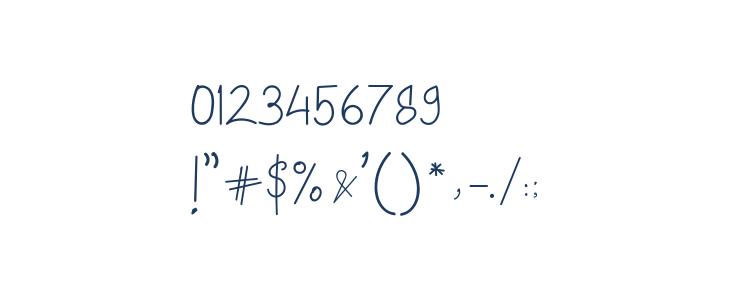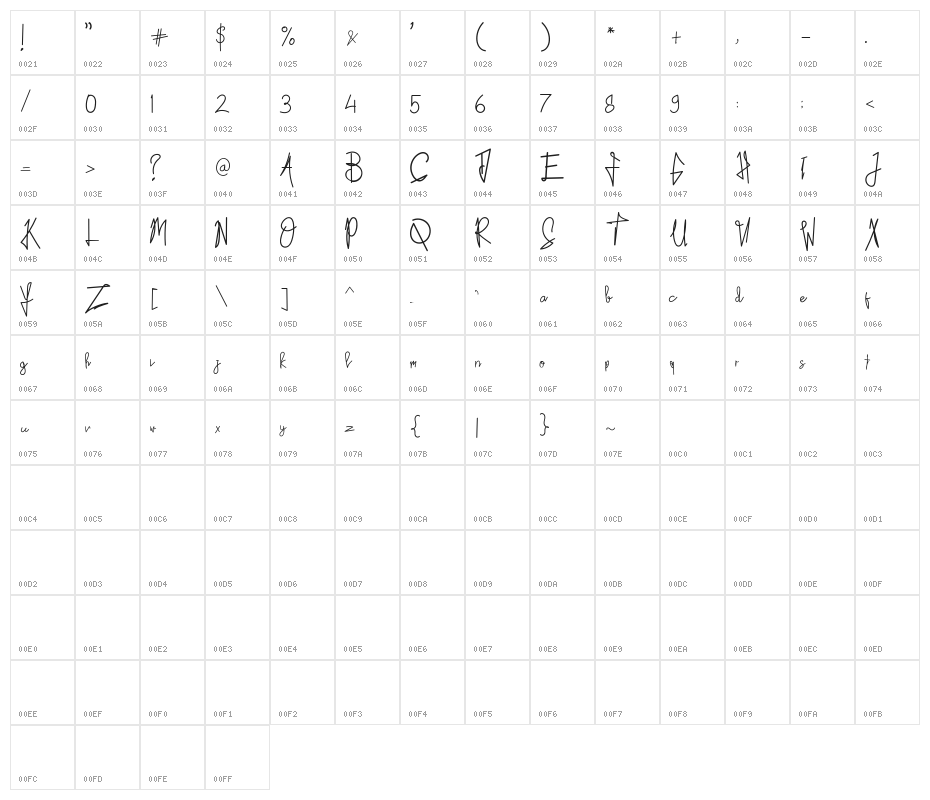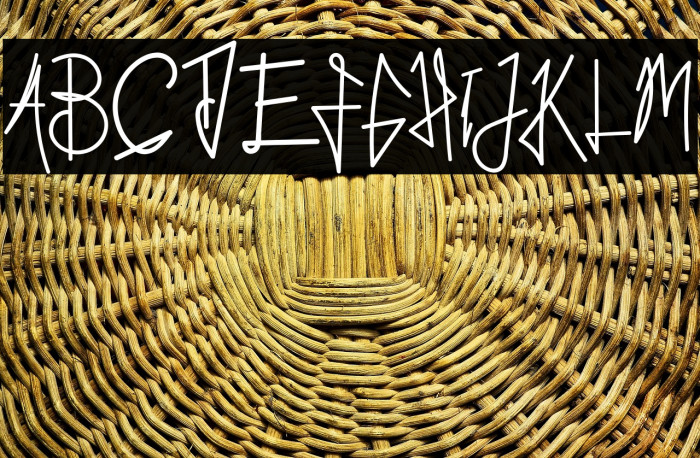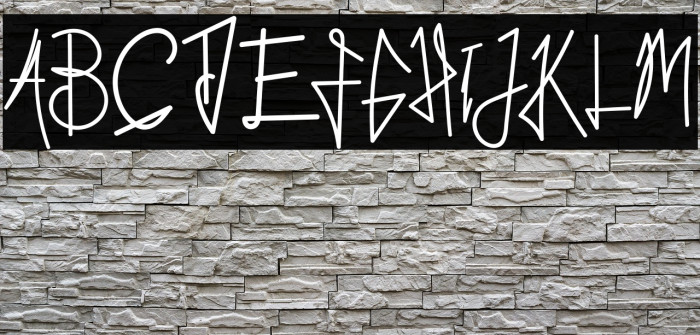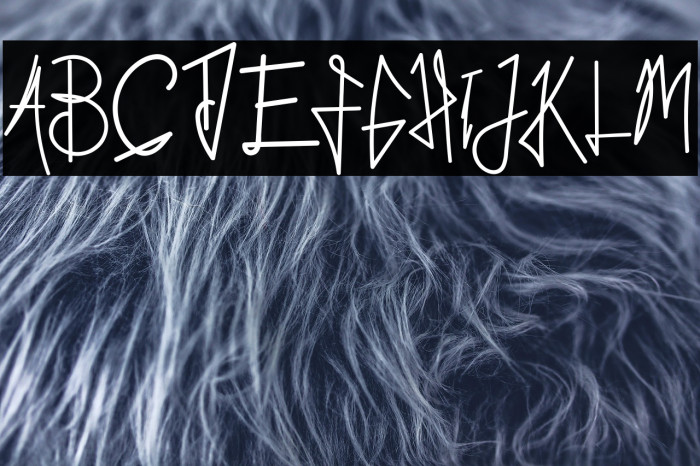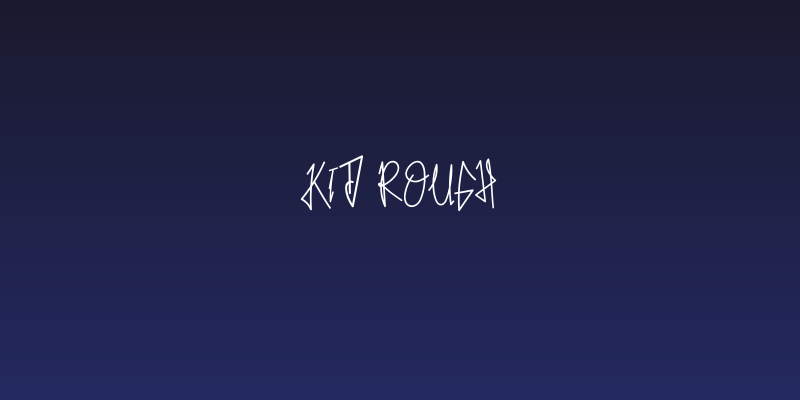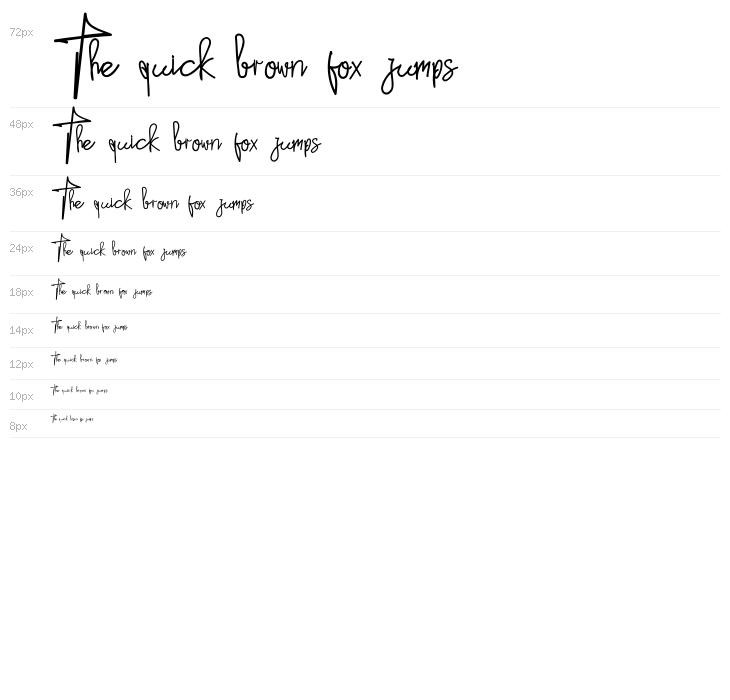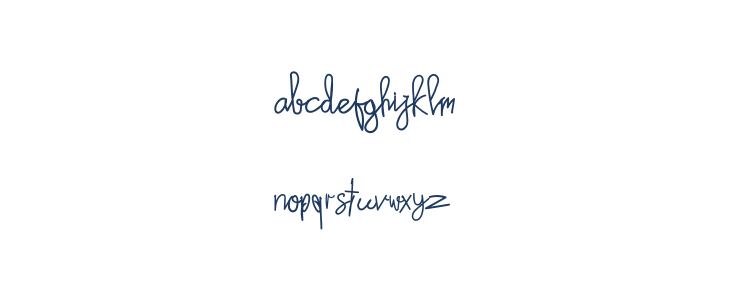
Kid Rough Font
Kid Rough Description
This font features a playful and dynamic style, characterized by its irregular and hand-drawn appearance. The letters have a whimsical, almost graffiti-like quality, with varying stroke widths and exaggerated curves. The uppercase letters are bold and expressive, while the lowercase letters maintain a consistent, yet quirky flow. Numbers and special characters follow the same energetic design, making the font suitable for creative and informal applications. Its unique style captures attention and adds a personal touch to any project.